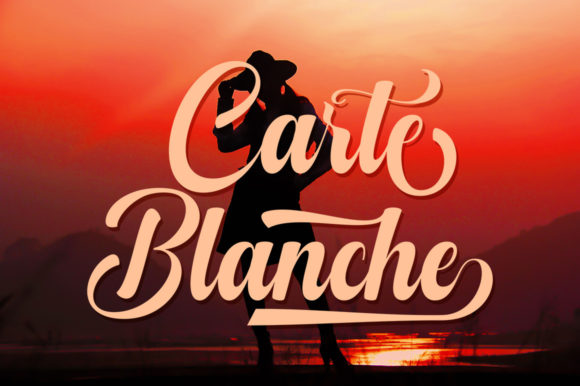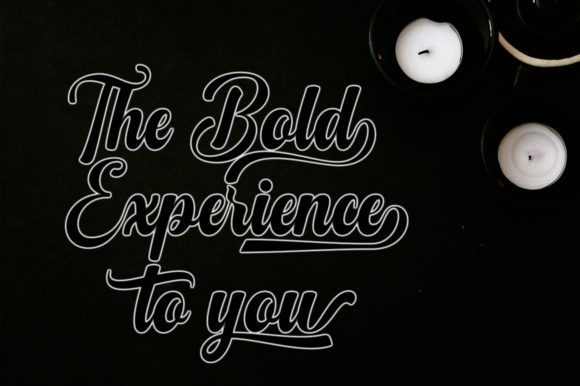
Ambrogio Font
db-ku.com - Script & Handwritten -- Ambrogio is an equally sophisticated and bold handwritten font that’s great for delivering any message with confidence, authenticity and charm. It will elevate a wide range of crafting ideas, from cards, to branding, labels and much more.